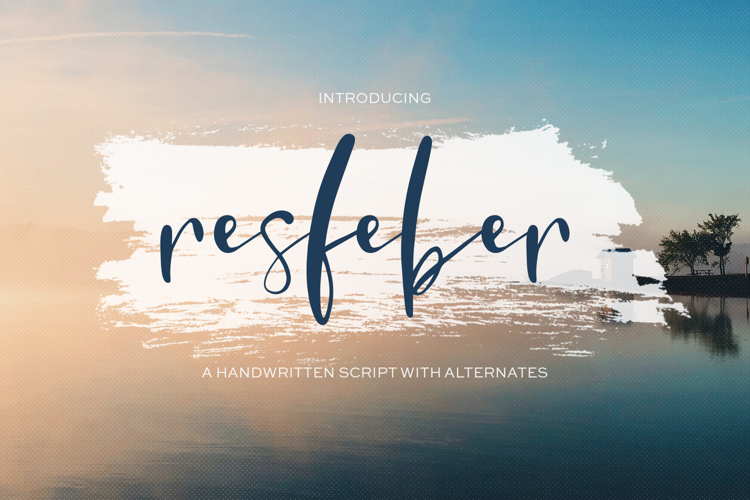
Refeber Script
Resfeber Swedish; noun. 1. The restless race of the traveler’s heart before the journey begins.
Meet Resfeber Script — a casual, effortless handwritten font — emphasis on the handwritten.
Resfeber includes:
standard upper + lowercase letters, numbers, punctuation
stylistic alternates for all lowercase letters so that the user can change up the look & feel of their project
intentional irregularities, including a varied baseline and letters with varied thicknesses in up+down strokes — maybe a little irregular and funky like that excited heartbeat right before you’re about to leave on an epic journey
Resfeber is the perfect fit for a modern, contemporary brand with its editorial feel. It would also be awesome for t-shirt designs, social media, quote graphics + other print materials.